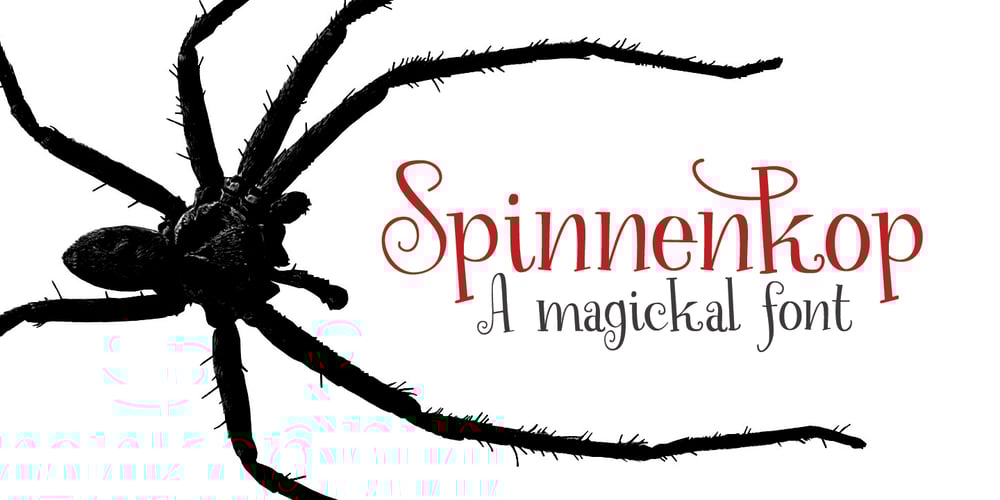
Spinnenkop Font Family was designed by David Kerkhoff and published by Hanoded. Spinnenkop contains 2 styles and family package options. Spinnenkop is an old Dutch word which means both ‘spider’ and (in dialect) cobweb. The word forms the basis for that English word: cobweb. Spinnenkop is a magical font. I didn’t use witchcraft to create it, but when it was finished, it reminded me of old fairytales, spell-books and potion recipes. Use it for anything you like, but book covers, product packaging and posters come to mind. Comes with a few swashed letters and a weird alternate g.